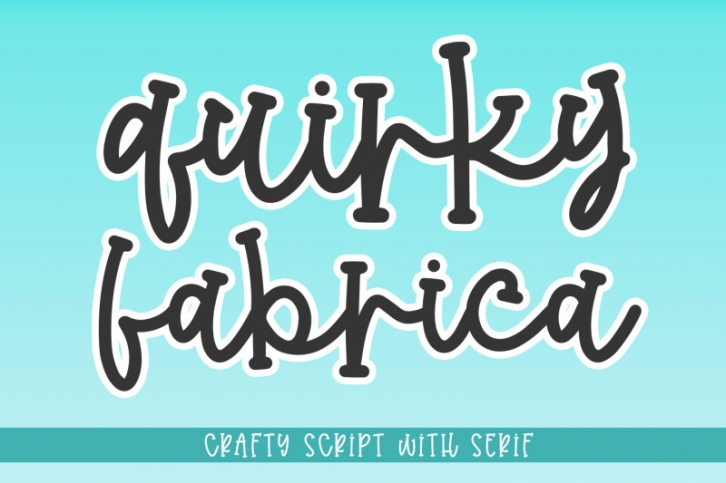
introducing
QUIRKY FABRICA
- crafty script with serif -
QUIRKY FABRICA is natural handwritten font.
It is great for quotes, branding, packaging, embroidery, cutting, silhouette, social media content and anything of craft project.